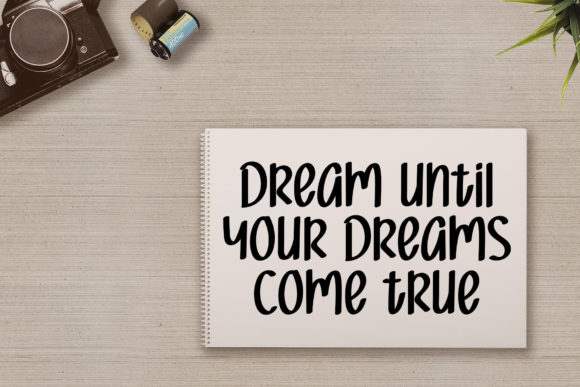
About Creative Vintage Font
Creative Vintage is a fun handwritten font. Clean and a little bit quirky, this font is the perfect fit for all of your logos, branding, social media, and crafty DIY projects.